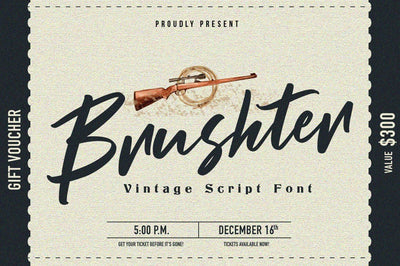
Brushter
Brushter is a vintage cursive handwritten font, relaxed and timeless. Employ it to each of your creative designs and notice how they come alive!